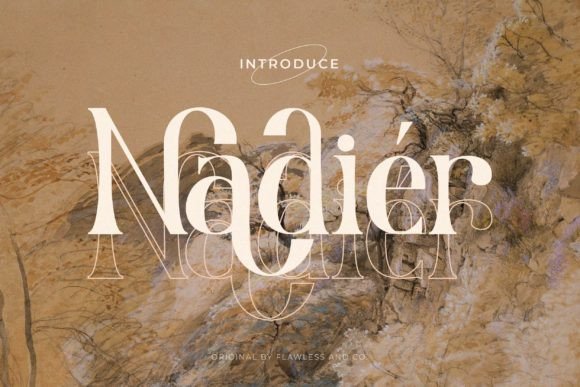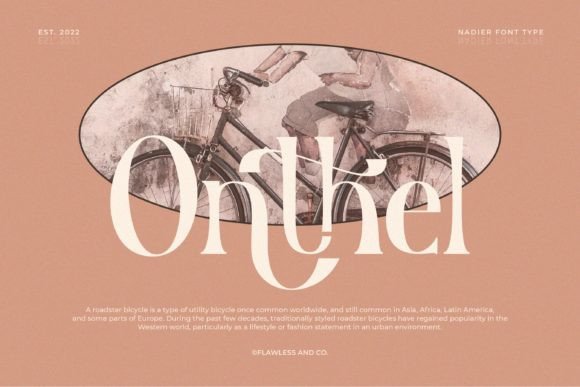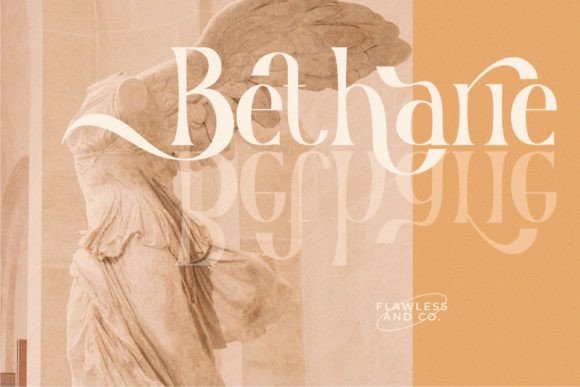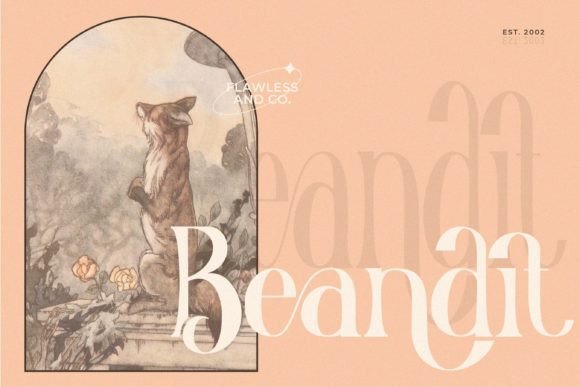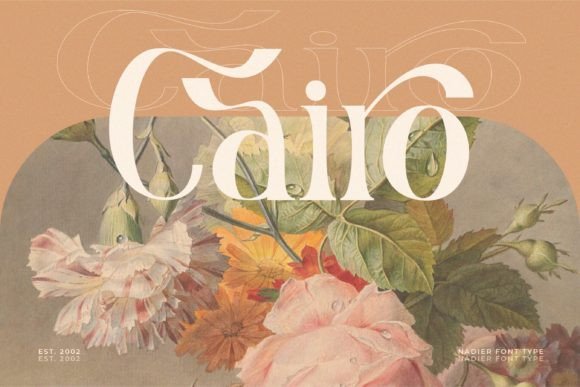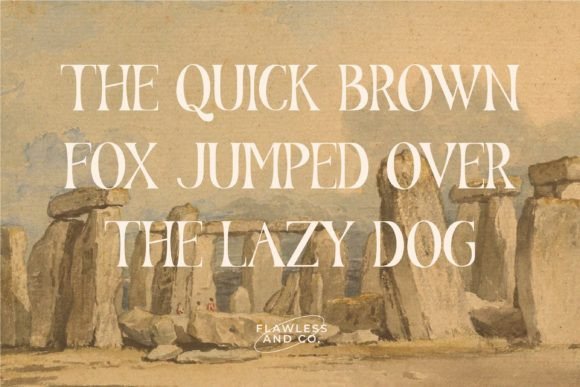
Introduction to Nadier Font
Have you ever been working on a creative project and found the perfect font, only to realize it’s missing that special something? That’s where the Nadier Font comes in – a modern elegant serif with a retro touch that’s sure to elevate your designs.
As a designer, you know how crucial it is to have the right tools at your disposal. The Nadier Font is a valuable addition to any design resource, offering high-quality glyphs and swashes that can be easily accessed thanks to its PUA encoding. Whether you’re working on branding materials, t-shirts, logos, posters, or photography, this font is the perfect companion for your creative endeavors.
Key Features of Nadier Font
- Unique, hand-drawn style with a mix of elegant and playful elements, adding a touch of sophistication to any design.
Honest Review: Nadier Font
I recently had the chance to work with the Nadier Font, and I must say it’s been a game-changer for my creative projects. The high quality of this font is undeniable, making it a fantastic design resource for anyone looking to elevate their work.
- ✨ High-quality typography: The Nadier Font boasts crisp, clean lines and a professional appearance that’s perfect for any creative project.
- ⚠️ Limited font weights: While the Nadier Font offers a range of styles, the number of font weights is somewhat limited, which may not be ideal for designers who need a broader range of options.
Overall, I’m impressed with the Nadier Font, and I would definitely recommend it to designers looking for a high-quality, free design resource. With some minor adjustments, I believe this font has the potential to be a top choice for designers everywhere.
Common Use Cases for Nadier Font
Nadier Font is ideal for use in creative projects that require a high-quality, elegant font. It’s perfect for designing wedding invitations, logos, and other marketing materials that demand a sophisticated look.